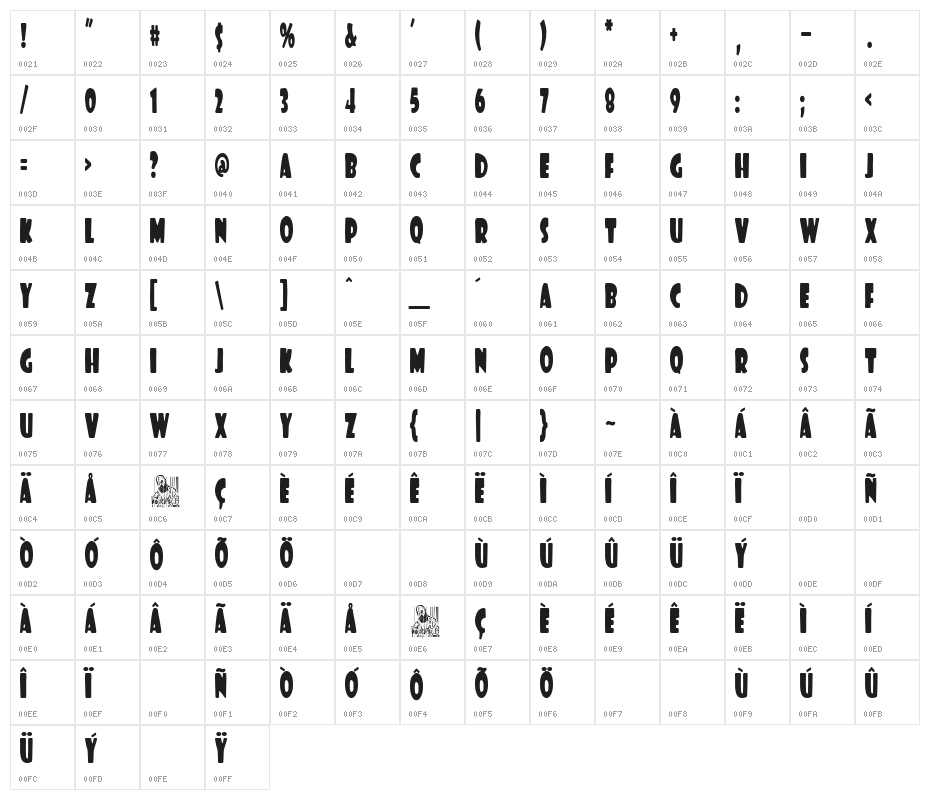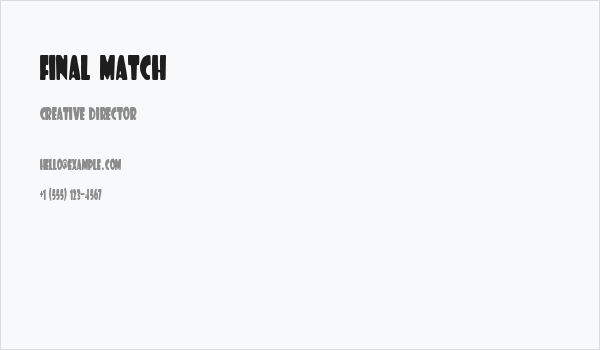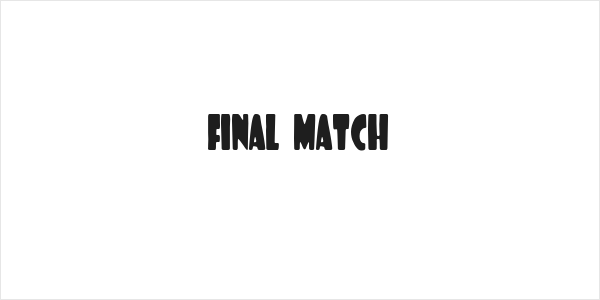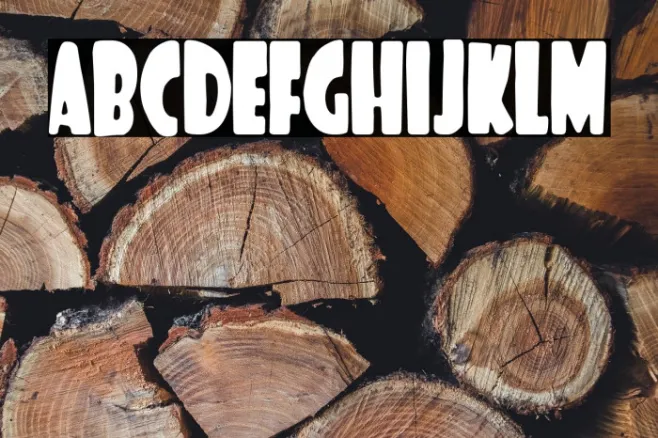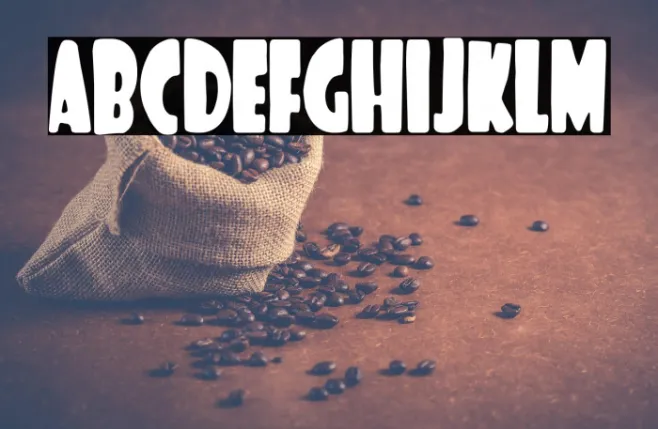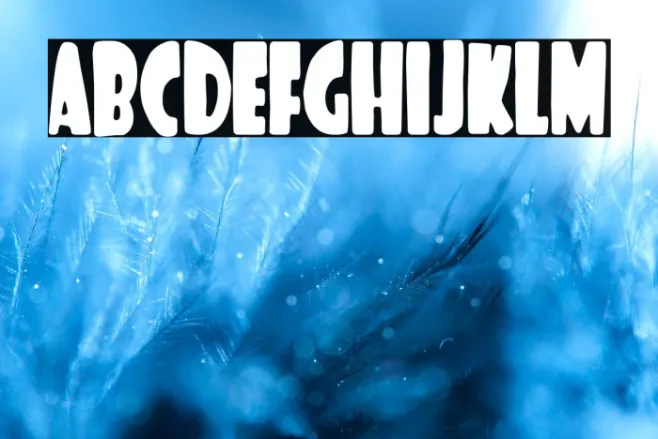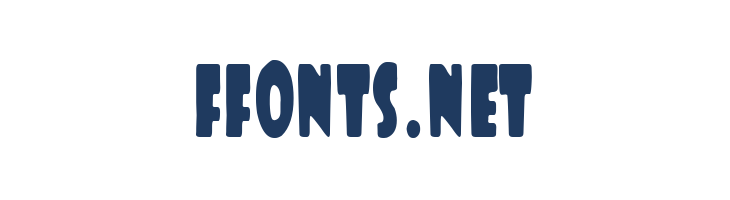
Final Match Font
Final Match Description
This font features bold, rounded characters with a playful and dynamic appearance. The letters are thick and have a slightly irregular shape, giving them a hand-drawn feel. The uppercase and lowercase letters maintain a consistent style, with a strong presence that makes them stand out. The numbers and special characters follow the same bold and rounded design, ensuring uniformity across all glyphs. This font's unique style is both eye-catching and approachable, making it suitable for a variety of creative projects.
| Overall Style | Playful, Hand-drawn |
| Proposed Projects | Ideal for children's books, playful branding, posters, and creative advertising. |